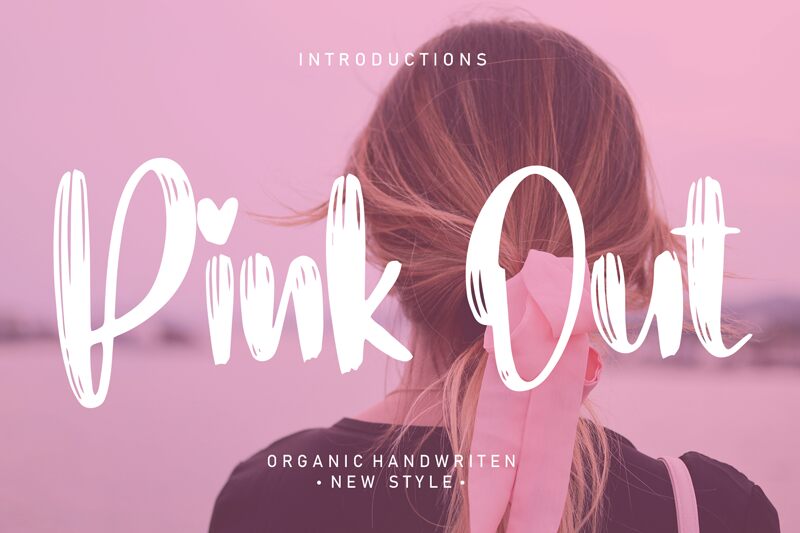
Pink Out
Pink Out, a captivating brush font created by Scratchones, exudes a playful and energetic spirit. With its bold, expressive strokes and organic flow, this font radiates a sense of vibrancy and spontaneity. The distinctive, intertwined letterforms evoke a handcrafted, artisanal quality, lending an authentic and personal touch to any design.
The versatile nature of Pink Out makes it an excellent choice for a wide range of design applications. Its lively character lends itself well to branding, packaging, and promotional materials, where it can add a touch of whimsy and charm. Furthermore, the font's adaptability extends to headlines, subheadings, and even body text, allowing designers to infuse their work with a refreshing, youthful aesthetic.